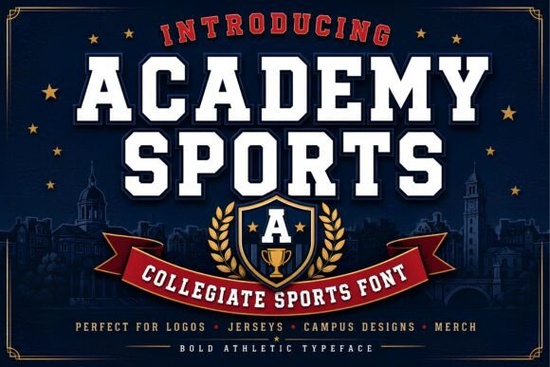
If you're designing for sports teams, school events, or campus apparel and want that unmistakable collegiate energy Academy Sports Font is a straightforward choice. It’s not overly decorative or trendy; instead, it delivers clean, blocky letterforms with sharp edges and balanced weight, echoing the bold signage you’d see on vintage gymnasium walls or varsity jackets. This display font works especially well when legibility and presence matter most: think team posters, jersey numbers, event banners, or custom mugs for homecoming weekend.
Who actually uses Academy Sports Font?
Small business owners printing local league merch, teachers preparing spirit week materials, POD sellers launching NCAA-inspired collections, and hobbyists making graduation gifts all find this font practical. Its athletic feel doesn’t rely on gimmicks it’s built into the structure of the letters themselves. That means less time tweaking spacing or adding effects, and more time getting designs printed or shared.
For example, if you run a small screen-printing shop catering to high school clubs, Academy Sports Font gives your client’s logo immediate credibility. It reads as “team,” not “template.” Same goes for crafters using Cricut or Silhouette machines the font cuts cleanly, and its generous x-height holds up well at medium sizes on t-shirts or vinyl decals.
How does it compare to other display fonts in the same style?
Not all bold, sporty fonts behave the same way. Some lean too heavily into retro distortion or exaggerated serifs, which can limit versatility. Academy Sports stays grounded: uppercase-heavy (though it includes lowercase), tightly kerned, and optimized for clarity at larger sizes. You’ll notice it shares visual DNA with classic American collegiate typography but without leaning into dated clichés.
If you’ve tried Military Steel Font, you’ll recognize a similar sense of authority but Academy Sports feels more approachable and less rigid. For contrast, Simply Playful Font offers friendly energy, while Gray Club Font leans modern-minimalist. And if you need something with more personality for youth leagues or summer camps, Pepper Pedro Font brings warmth and bounce but not the same structural confidence.
Where does it work best and where might it fall short?
This is a display font, so it shines at 36pt and up. Use it for headlines, logos, signage, and product mockups not body text or long paragraphs. It pairs naturally with neutral sans-serifs like Montserrat or Open Sans for supporting copy. Avoid pairing it with other heavy display fonts unless you’re intentionally going for layered intensity.
One thing to keep in mind: because it’s inspired by traditional letterpress and screen-printing techniques, some characters like the ampersand or numerals have subtle texture or slight irregularity. That’s intentional. It adds character, but if you need pixel-perfect digital precision (say, for UI buttons or app icons), you may prefer a more engineered alternative.
Real-world examples you can try this week
- School spirit bundle: Combine Academy Sports Font with school colors and a simple shield icon to create printable posters for pep rallies or orientation week.
- Custom jersey mockup: Drop the font onto a blank jersey template (number + name), then export for Instagram or your POD dashboard.
- Graduation keepsake: Use it for a “Class of 2025” sticker design pair with a clean script font for names to balance the boldness.
- Gym branding starter kit: Design a no-frills logo lockup for a new fitness studio using just the font + a minimal icon (like a dumbbell or barbell outline).